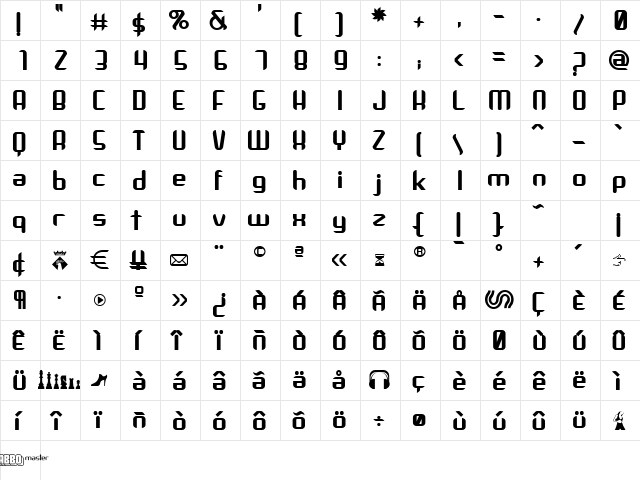
Arbeka Bold
Design Context for Arbeka Typeface
Arbeka offers clean, dependable letterforms without strong stylistic allegiance, making it a practical choice for designers who need flexibility. Its bold stroke weight gives it real presence on the page.
Pro Tip: Use Arbeka in both headline and body roles to test its range before committing to a single application.